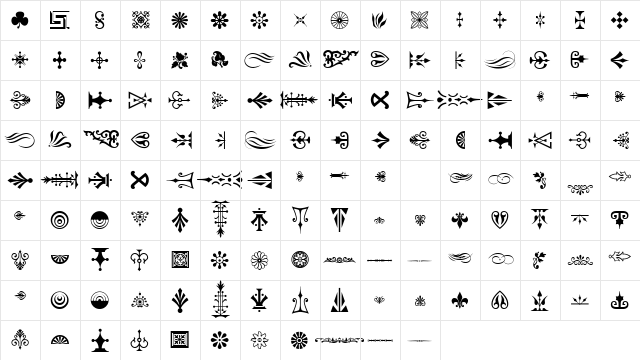
OrnamentTM Normal
Design Context for OrnamentTM Typeface
OrnamentTM is built around its visual character rather than neutral utility — its distinctive forms are designed to make an impression at display sizes.
Font Pairing: Pair with a clean neutral sans-serif for body copy to let OrnamentTM's character lead without overwhelming the composition.
Pro Tip: Use OrnamentTM exclusively at display sizes — it was designed to be seen, not read at length. Let a neutral companion handle body copy.